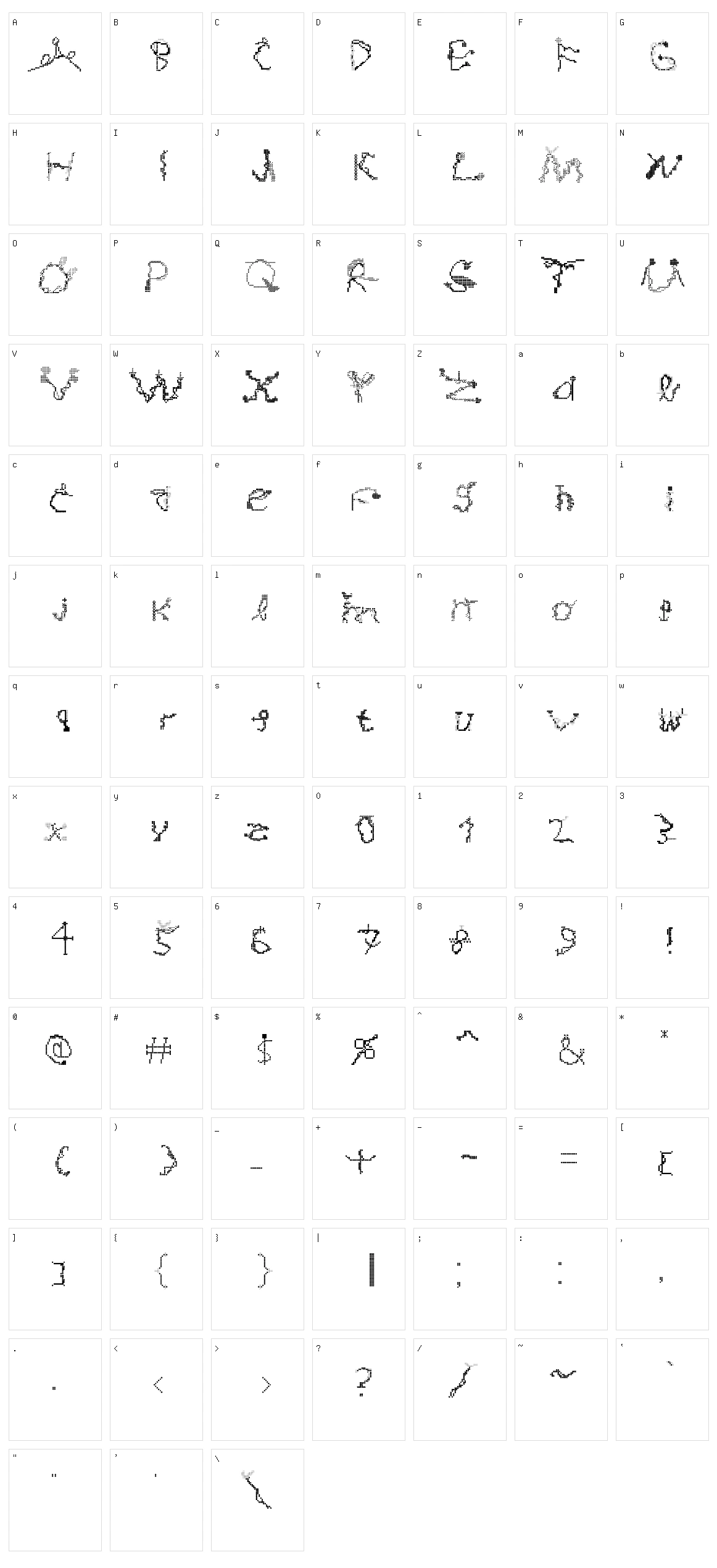
The free font Magicial Game is carefully designed by Svaika Bučinukė, showcasing a thoughtful balance of creativity and usability and falls under the Distorted font style. When you download the ZIP file, it contains only 43.47 KB of font files, making it lightweight and quick to download. Please review the license details below to understand permitted usage and distribution rights. If license information is not available, we recommend using this font for personal projects only or contacting the author directly for commercial usage permissions.
The FontStruction “Magicial Game”